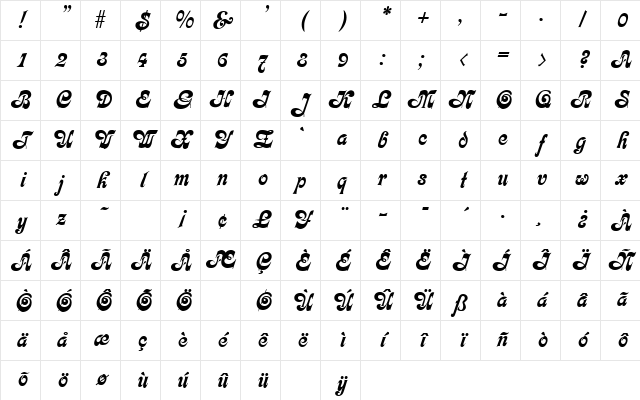
Aristocrat SF Regular
Design Context for Aristocrat SF
Aristocrat SF is a composed and adaptable typeface that performs quietly and consistently across a wide range of design contexts.